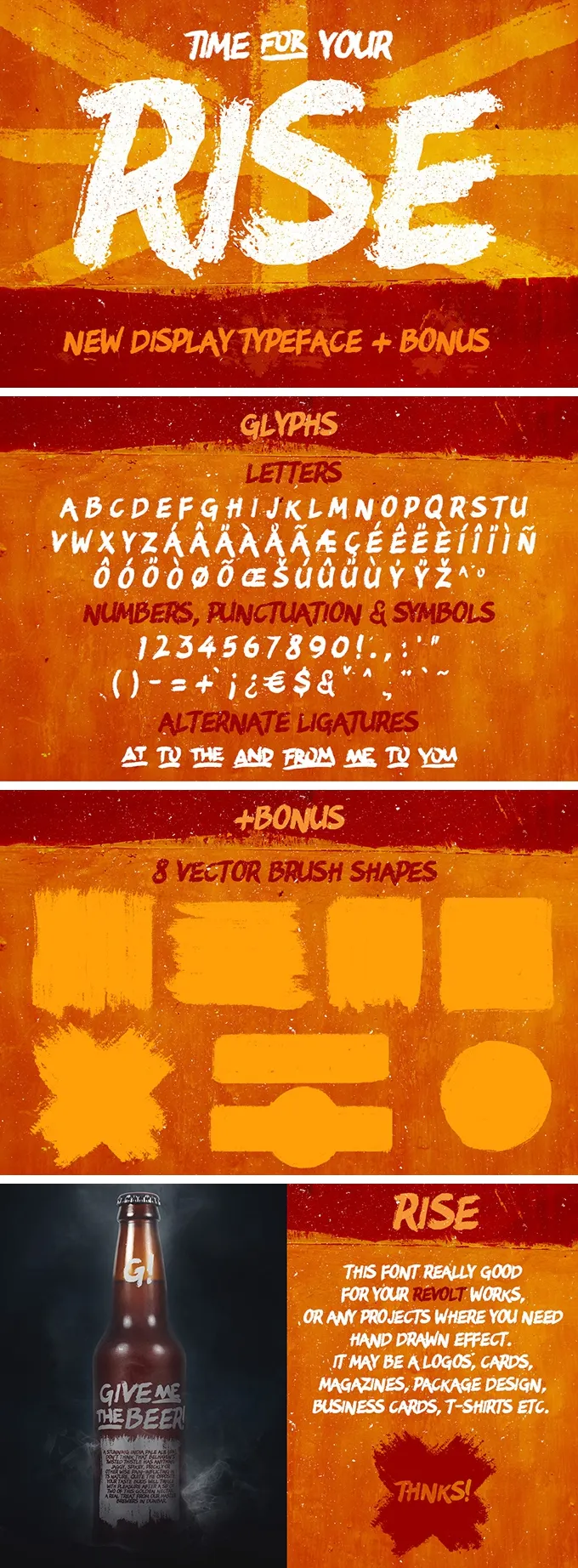
RISE Brush Font + Bonus
The Rise is a very detailed decorative typeface with a perfect hand-drawn effect! Sloppy shapes of this brush font are so careless you enjoy every second of working on a project with them!
You think that's it? Oh, there's also a nice bonus! You get a set of 8 vector brush painted shapes in AI, EPS & PNG formats. It's really good for designing logos, business cards, magazines, package design, and t-shirts. Isn't this typeface adorable?